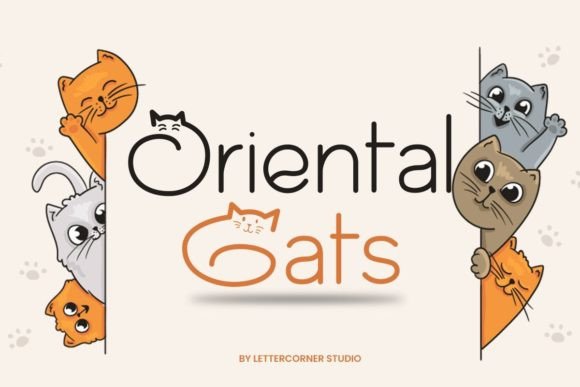
Looking for the perfect font to add a touch of whimsy and cuteness to your designs? Look no further than Oriental Cats Font! Created by the talented team at Lettercorner Studio, this decorative font is specially designed for all the cat lovers out there.
Oriental Cats Font brings a playful and charming vibe to any project. With its cute and whimsical kitten characters, it's the ideal choice for creating designs that are both unique and lovely. Whether you're designing a website, creating social media graphics, or working on print materials, this font will capture the hearts of your audience.
One of the key features of Oriental Cats Font is its versatility. This font can be used for a wide range of design projects, making it a valuable asset for any designer. Its decorative style is perfect for adding a touch of personality to web forms, making them visually appealing and engaging for users.
Not only does Oriental Cats Font bring a visually appealing element to your designs, but it also enhances the user experience. By using this font in your web forms, you can create a fun and interactive environment that will keep users engaged and excited to fill out the form. Say goodbye to boring and generic forms – Oriental Cats Font will make your web forms stand out from the crowd!
With its decorative style and captivating charm, Oriental Cats Font is the best choice for all your design needs. Whether you're a professional designer or a cat enthusiast looking to add some feline flair to your creations, this font is a must-have in your collection.